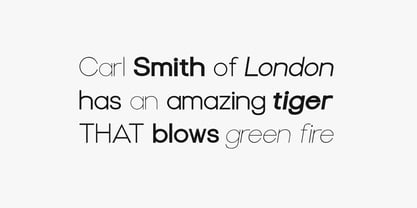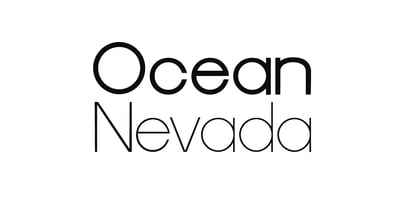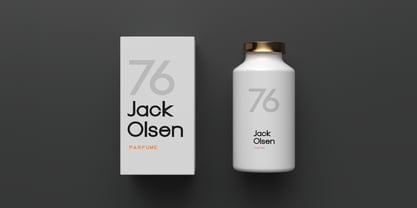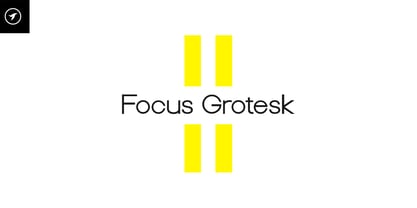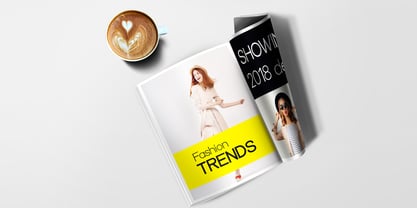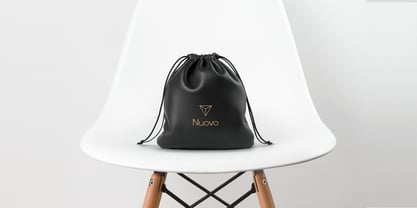
Focus Grotesk
by Designova
The Focus Grotesk Font Family was designed by Jean Johnson and published by Designova. Focus Grotesk contains 10 styles and family package options. More about this family
Focus Grotesk - An authentic geometric Sans-Serif typeface, a perfect choice for both body text and headlines. The font is great for print, web, logo design, marketing graphics and branding purposes. The typeface is designed from handmade geometrical shapes and the developers performed extensive kerning to add utmost perfection to each glyph combinations.
• 5 Weights (Thin / Light / Regular / Bold / Heavy)
• 5 Weights of Italic versions (Thin / Light / Regular / Bold / Heavy)
Designers: Jean Johnson
Foundry: Designova
About Designova
Designova® is a type foundry and branding studio founded in Berlin in 2012, specialising in type design and branding. Designova® produces commercial typefaces, custom fonts, logotypes, brand identities, and digital expressions. The studio has collaborated with well-known brands, including Lufthansa, Adidas, GoDaddy, and Giant Tiger, as well as numerous startups and small businesses.